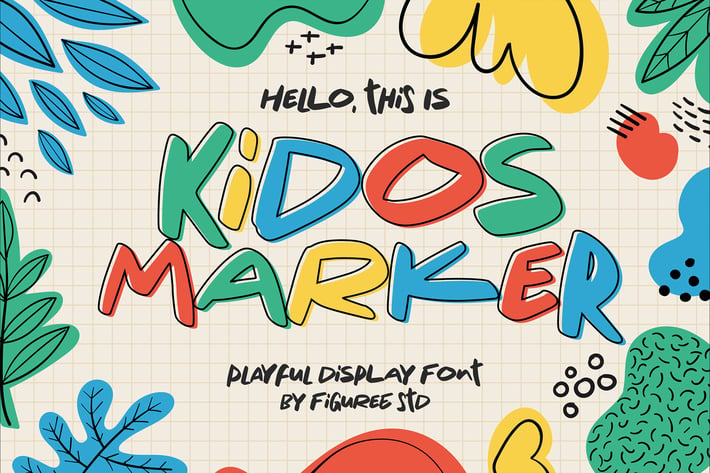
Kidos Marker - Playful Display Font
Say hello to Kidos Marker font. Made with love and joy. Kids look, so it will make your design more beautiful, cute, fun, and colorful.